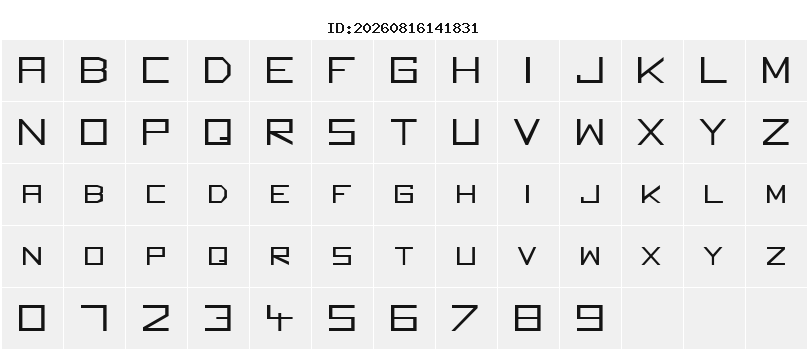
• Font Name: Square Unique
Square Unique.ttf is a modern, elegant sans-serif font designed for ultimate readability and visual harmony. Perfect for branding, headlines, web design, and print materials.